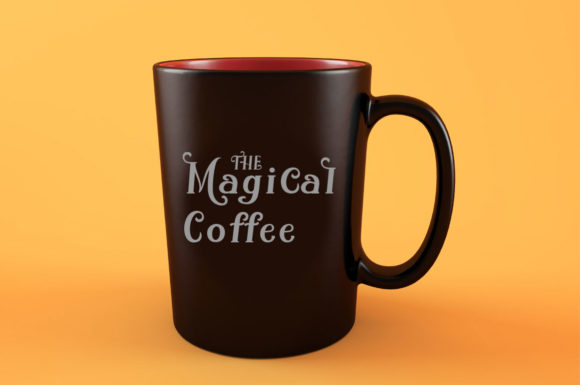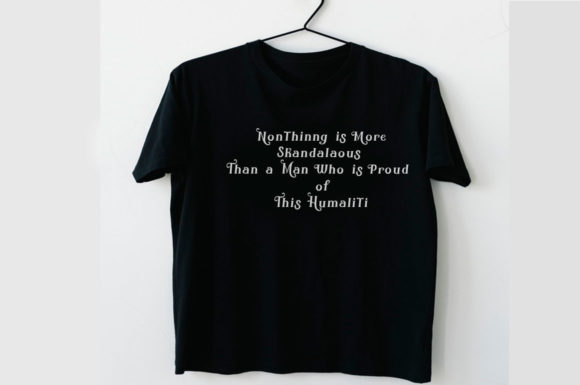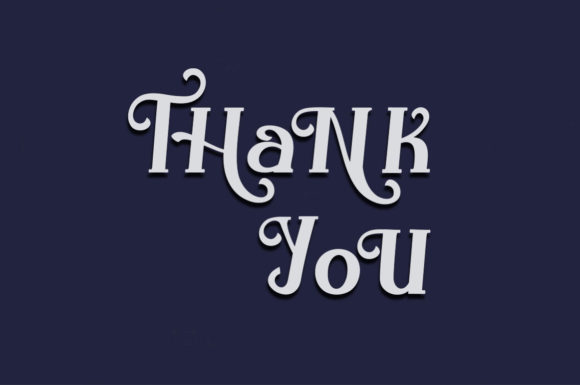
Introducing Fanatik Font, a captivating serif font that embodies the essence of fun, quirkiness, and authenticity. This enchanting font is designed to breathe life into your creative projects, transforming them into true showstoppers. Whether you’re crafting a brand identity, designing a poster, or creating a digital campaign, Fanatik Font is the perfect companion to elevate your work.
For designers, Fanatik Font offers a unique opportunity to add a touch of personality to their designs, setting them apart from the ordinary. Its value lies in its ability to inject a sense of playfulness and creativity, making it an invaluable tool in any design arsenal.
Fanatik Font Key Features
- Unique Characteristics: Fanatik features a unique blend of geometric and organic shapes, resulting in a modern and dynamic aesthetic.
- Language Support: Fanatik supports a wide range of languages, including Latin, Cyrillic, and Greek alphabets.
- Kerning and Glyphs: The font includes advanced kerning and glyph features, ensuring that text is displayed with precise spacing and clarity.
Designer Review: Fanatik Font
Overall, I found Font Fanatik to be an interesting addition to the world of typography. Let’s dive into what works well and what doesn’t.
- Unique Character Set: The font offers a diverse range of characters, including some fun and quirky options.
- Good for Display Use: Fanatik Font’s bold lines and striking shapes make it well-suited for headings, titles, and other display text.
- Works Well in Digital: I found the font to perform well in various digital formats, including web and mobile applications.
- Limited Legibility: While the font is great for display purposes, it may not be the best choice for large blocks of body text due to its busy lines and shapes.
- Not Ideal for Small Text: The font’s bold lines and limited spacing make it challenging to read in smaller sizes.
- Lacks Consistency: Some characters, such as the lowercase ‘a’ and ‘e’, feel slightly out of place in the overall design.
While Fanatik Font is not without its limitations, it’s a great addition to any designer’s toolkit for specific use cases. With careful selection and consideration of the font’s strengths and weaknesses, it can add a unique touch to your designs.
Tips for Getting the Most Out of Fanatik Font
Use the Fanatik Font in bold and italics to add emphasis to your text.
Combine the Fanatik Font with other fonts to create a unique and eye-catching design.
Experiment with different font sizes and colors to find the perfect balance for your design.
The Fanatik Font is perfect for:
- Creating eye-catching social media graphics.
- Designing bold and modern logos.
- Adding a touch of personality to your blog or website.
Alternatives to Fanatik Font
Great Vibes is a modern, elegant script font suitable for creating a sense of sophistication and luxury. It’s ideal for use in branding, packaging, and advertising materials where a touch of elegance is required.
Comparison to Fanatik Font: Great Vibes has a more refined and polished look compared to Fanatik Font, which has a more playful and energetic feel. While Fanatik Font is perfect for creating a lively atmosphere, Great Vibes is better suited for creating a sense of high-end sophistication.